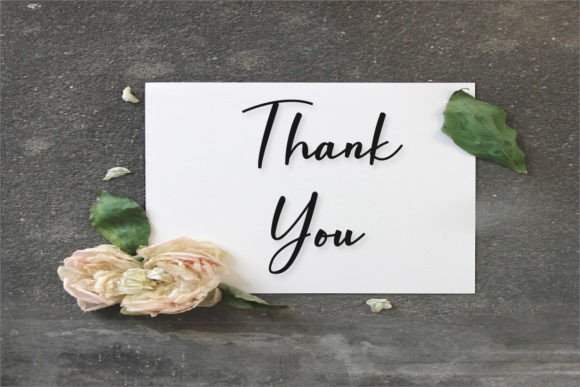
Introduction to Season Font
Do you remember the moment when a font just clicked and took your creative project to the next level? For many designers, it’s a feeling of pure joy and satisfaction. That’s exactly what happens when you come across the Season Font – a delicate, elegant, and flowing handwritten font that exudes high quality and sophistication.
Whether you’re working on a branding project, a wedding invitation, or a creative blog post, the Season Font is an invaluable design resource that can elevate your work to new heights. Its beautiful and well-balanced characters make it a versatile choice for a wide range of designs, from modern and sleek to vintage and whimsical.
Key Features of Season Font
- High-quality, vector-based design for a crisp and clear display in any size.
Honest Review: Season Font
As a designer, I’m always on the lookout for high-quality fonts to elevate my creative projects. Season Font caught my attention, and I was excited to try it out. After using it in a few projects, I’m happy to share my thoughts.
What works well: ✨ The Season Font has a beautiful, elegant design that’s perfect for modern projects. The transparent background makes it easy to use with different images and backgrounds. It’s also available as a free download, which is a great bonus for designers on a budget. The font is also very versatile, making it suitable for a wide range of creative projects.
- Versatile and suitable for modern projects
Limitations: ⚠️ While Season Font is a great addition to any designer’s toolkit, it may not be suitable for all projects. The font is a bit on the thin side, which can make it difficult to read at small sizes. Additionally, the font family is relatively small, which may limit its use in large-scale projects.
Overall impression: I’m impressed with Season Font’s design and versatility. While it may have some limitations, it’s a great resource for designers looking for a high-quality, modern font. I’ll definitely be using it in future projects.
Season Font
Tips for Getting the Most Out of Season Font
Experiment with different font sizes and styles to add depth and creativity to your project.
Season Font is a versatile design resource that can be used in a variety of creative projects.
Season Font is commonly used in branding, advertising, and editorial design.
Its high-quality design makes it an ideal choice for creative projects that require a sophisticated and professional look.